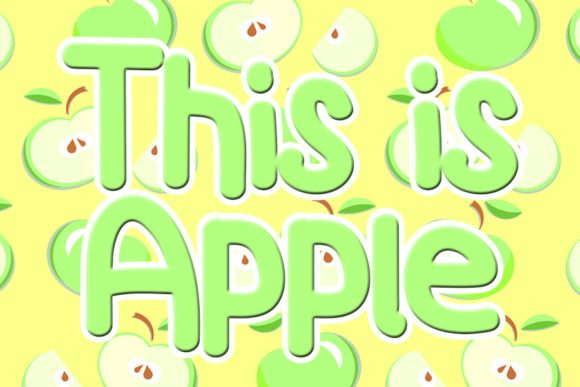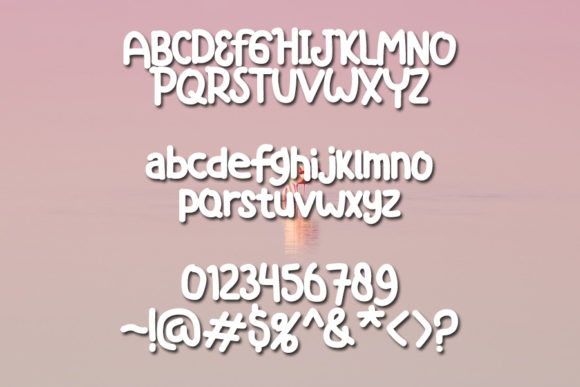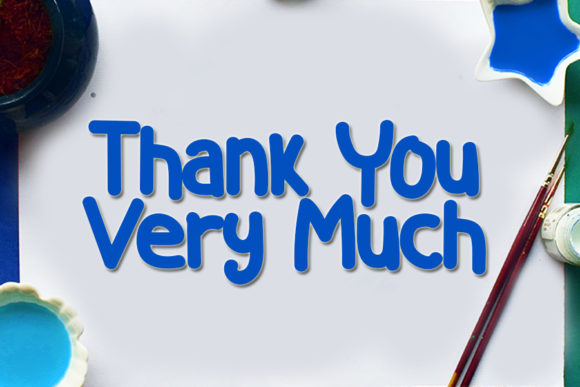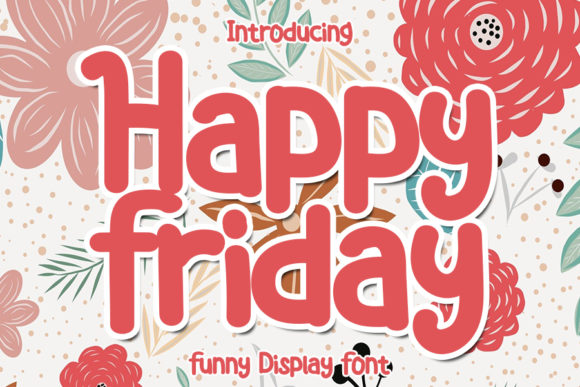
Introducing Happy Friday Font: The Perfect Addition to Your Children’s Design Projects
Are you a designer or crafter looking for a fun and friendly font to add a touch of excitement to your children’s design projects? Look no further than Happy Friday Font! This delightful display font is specifically designed to bring a smile to kids’ faces, making it perfect for a variety of creative endeavors. In this article, we’ll dive into the world of Happy Friday Font, exploring its features, benefits, and uses, as well as provide tips on how to make the most of this fantastic font.
What is Happy Friday Font?
Happy Friday Font is a playful and charming display font that’s ideal for kids’ themed designs. Its friendly and approachable style makes it perfect for projects that require a lighthearted and youthful touch. Whether you’re creating posters, flyers, brochures, or digital graphics, Happy Friday Font is sure to add a burst of energy and enthusiasm to your work.
Key Features of Happy Friday Font
- Fun and Friendly Style: Happy Friday Font boasts a unique and playful design that’s sure to capture kids’ attention.
- Perfect for Children’s Designs: This font is specifically designed for kids’ themed projects, making it an excellent choice for designers and crafters who work with children.
- Works Well with Bright Colors: Happy Friday Font looks amazing when paired with bright and vibrant colors, adding an extra layer of excitement to your designs.
- Easy to Read: Despite its playful style, Happy Friday Font remains easy to read, making it perfect for headlines, titles, and short paragraphs.
Benefits of Using Happy Friday Font
So, why should you choose Happy Friday Font for your design projects? Here are just a few benefits of using this fantastic font:
- Adds a Touch of Whimsy: Happy Friday Font brings a sense of playfulness and fun to your designs, making them more engaging and appealing to kids.
- Versatile: This font can be used in a variety of design projects, from posters and flyers to digital graphics and crafts.
- Easy to Pair with Other Fonts: Happy Friday Font works well with other fonts, allowing you to create unique and interesting typography combinations.
Creative Uses for Happy Friday Font
Happy Friday Font is incredibly versatile, making it suitable for a wide range of design projects. Here are some creative ways to use this fantastic font:
- Kids’ Party Invitations: Create fun and playful party invitations that set the tone for an unforgettable celebration.
- Children’s Book Titles: Use Happy Friday Font to create eye-catching titles for kids’ books, making them more appealing to young readers.
- Educational Materials: Add a touch of fun and excitement to educational materials, such as worksheets, activity sheets, and posters.
- Craft Projects: Use Happy Friday Font to add a personal touch to craft projects, such as handmade cards, gift tags, and scrapbook pages.
Tips for Using Happy Friday Font
To get the most out of Happy Friday Font, here are some tips to keep in mind:
- Use it Sparingly: While Happy Friday Font is perfect for kids’ designs, it’s essential to use it sparingly to avoid overwhelming the reader.
- Pair it with Bright Colors: Take advantage of Happy Friday Font’s playful style by pairing it with bright and vibrant colors.
- Experiment with Typography: Don’t be afraid to experiment with different typography combinations to create unique and interesting effects.
In conclusion, Happy Friday Font is a fantastic addition to any designer’s or crafter’s toolkit. Its fun and friendly style makes it perfect for kids’ themed designs, while its versatility and ease of use make it suitable for a wide range of creative projects. By incorporating Happy Friday Font into your designs, you’ll add a touch of whimsy and excitement that kids will love. So why wait? Download Happy Friday Font today and start creating amazing designs that bring a smile to kids’ faces!